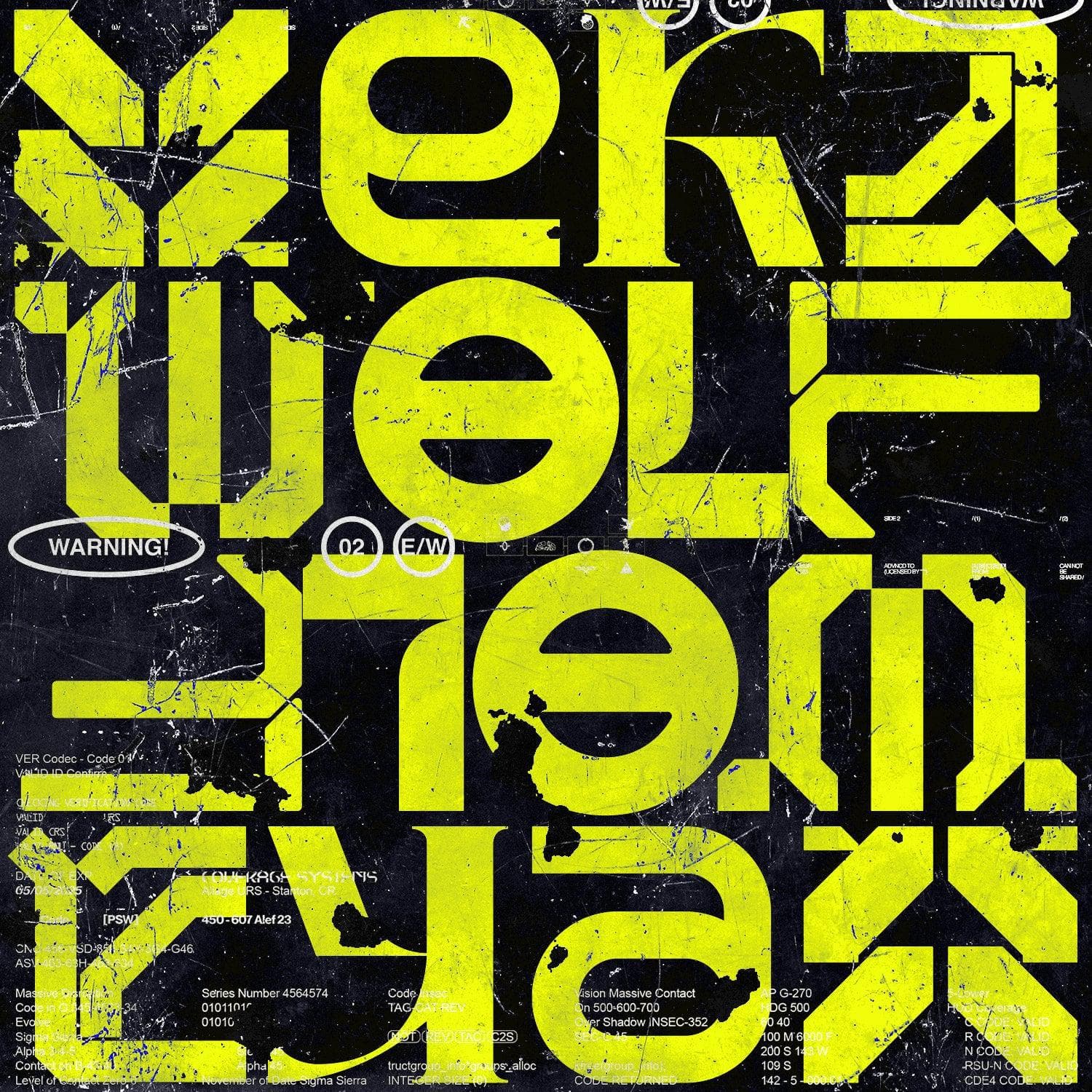
<p>Unleash futurism with this chaotic and cosmic font! Each capital letter has a different style but always relevant to the science fiction world. Font suitable for large and effective titles. Lowercase (supporting) letters, uppercase, numbers and basic signs.</p>